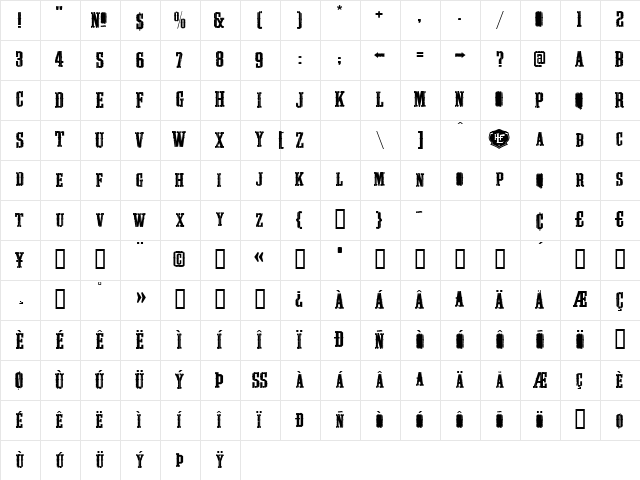
Complete LHF Outlaw ROUGH Roman glyph index. Displaying only characters natively supported by LHF Outlaw ROUGH Roman font.
LHF Outlaw ROUGH embraces imperfection - its rough, textured character adds raw authenticity to designs that want to feel lived-in and unconventional.
Pro Tip: Use LHF Outlaw ROUGH at larger sizes where the texture and irregularity of each letterform can be clearly seen - it loses its character at small sizes.